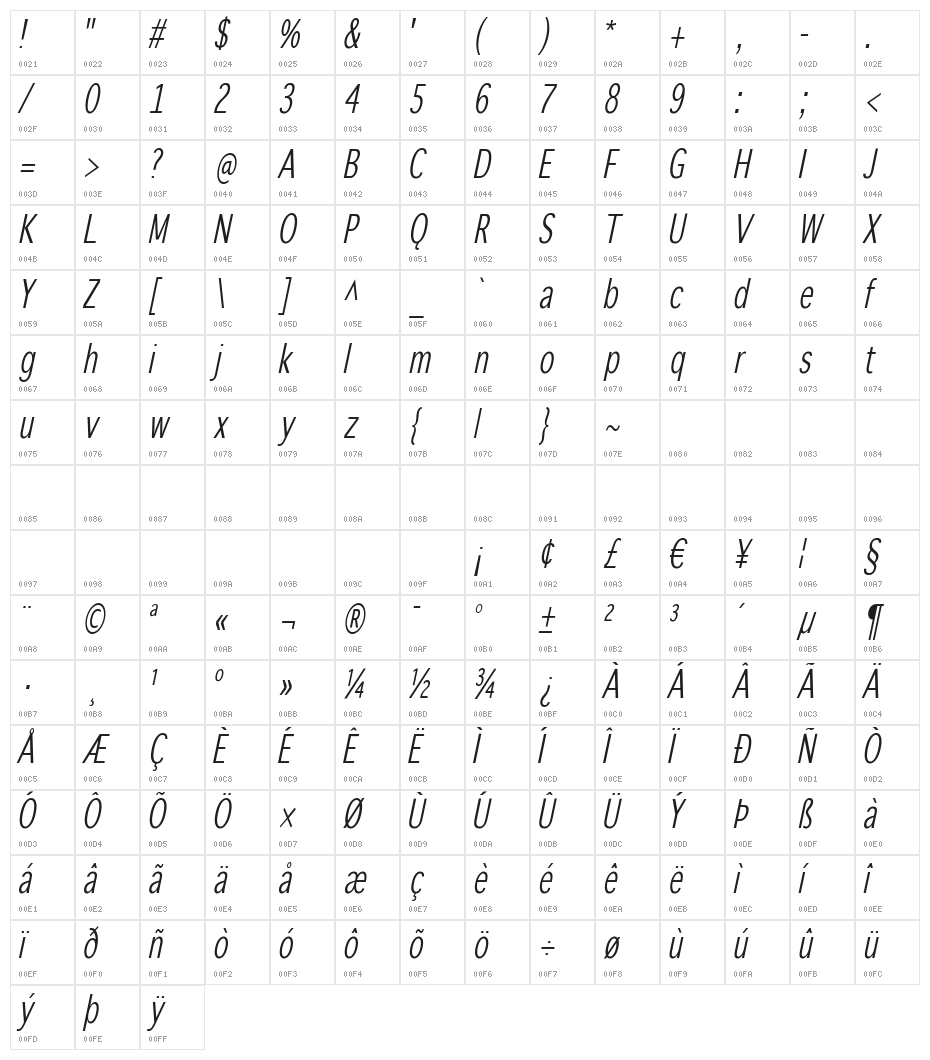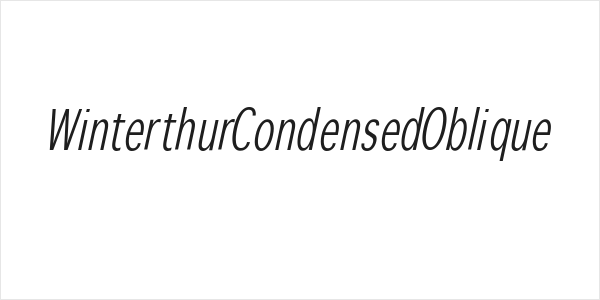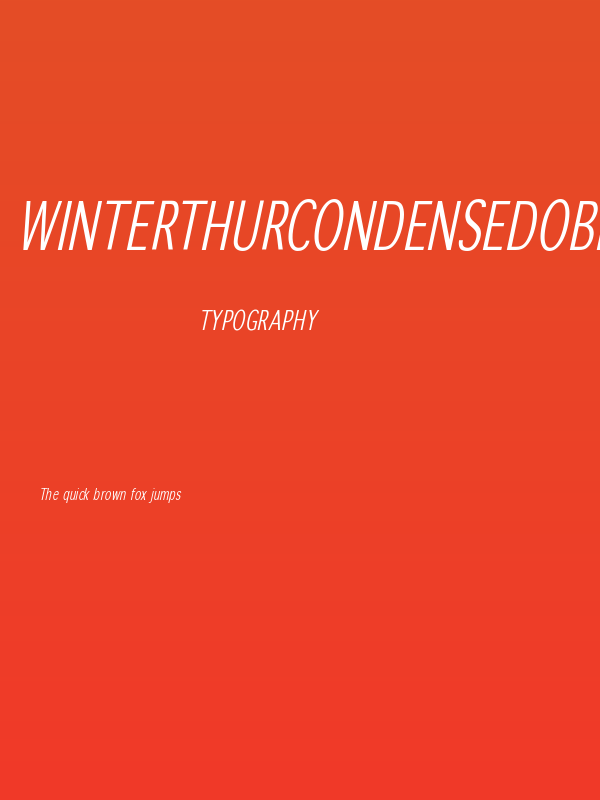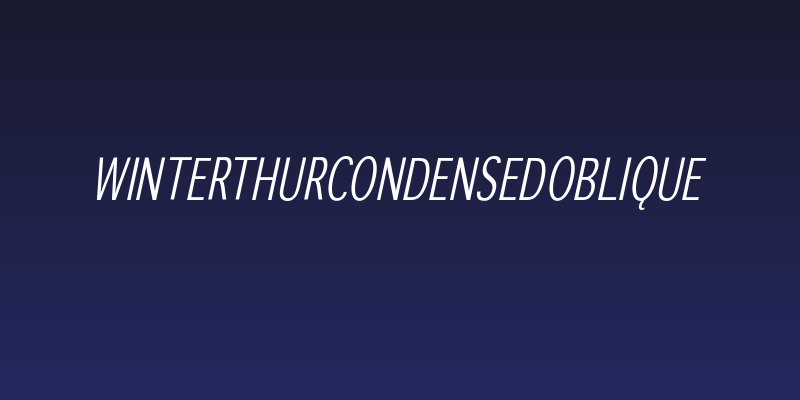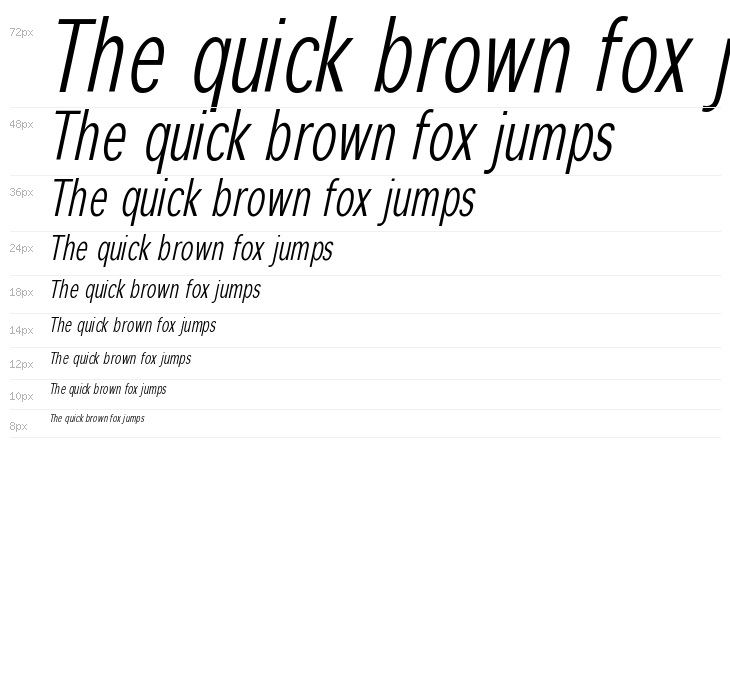
WinterthurCondensedOblique Font
WinterthurCondensedOblique Description
This font features a sleek, condensed design with an oblique slant, giving it a dynamic and modern appearance. The characters are tall and narrow, which contributes to a sense of elegance and sophistication. The strokes are consistent in weight, providing a uniform look across all characters. The font maintains a clean and professional aesthetic, making it suitable for various applications. Its condensed nature allows for efficient use of space, making it ideal for headlines and titles where space is limited. The oblique style adds a touch of movement and flair, enhancing its visual appeal.
| Use Case | Headlines, Logos, Editorial design |
| Proposed Projects | Ideal for editorial design, advertising, branding, and any project requiring a modern, space-efficient typeface. |